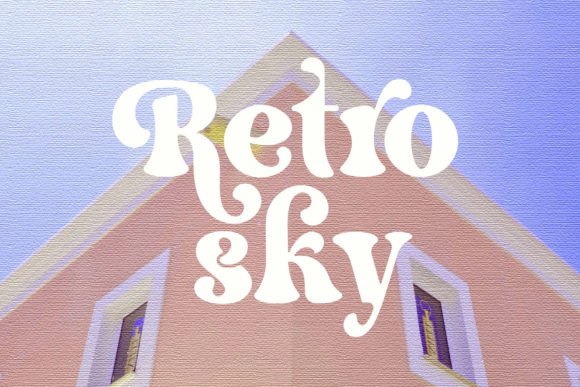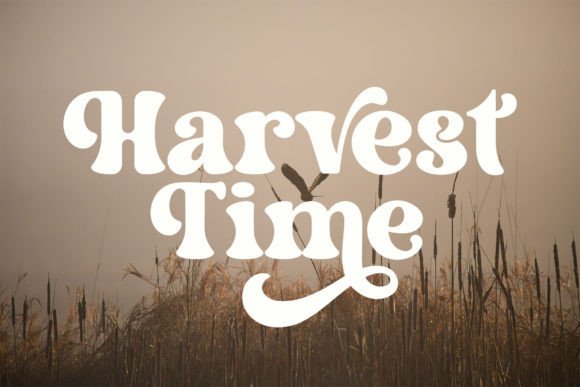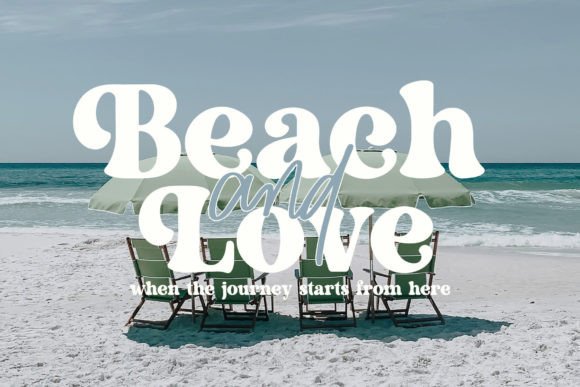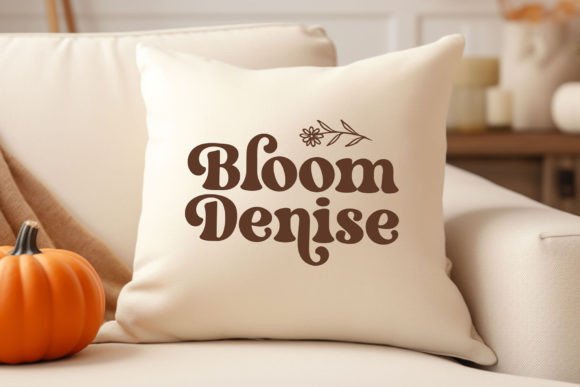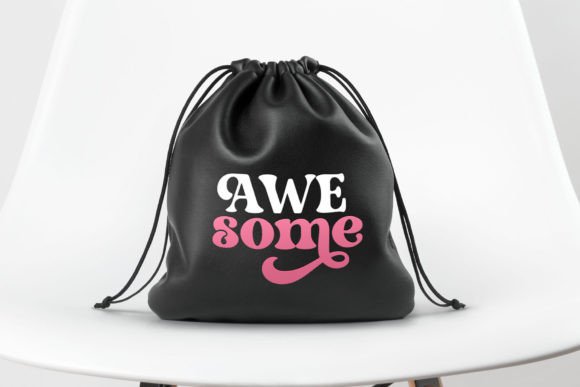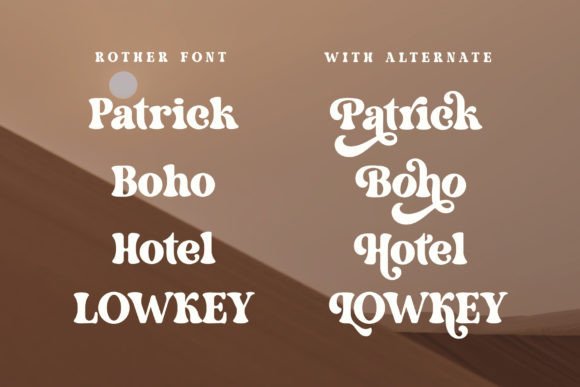
Introduction to Rother Font
Have you ever been working on a creative project, pouring your heart and soul into every detail, only to realize that the perfect font is missing? For designers, finding the right font can be the difference between a project that shines and one that falls flat. This is where the Rother Font comes in – an elegant and bold serif font that’s sure to elevate your designs and leave a lasting impression.
| 👤 Author | airotype |
With its incredibly versatile style, the Rother Font is perfect for a wide range of applications, from beautiful stationery art to eye-catching social media posts. Whether you’re looking for a high-quality font to add a touch of sophistication to your designs or a free download to spice up your next creative project, the Rother Font is a valuable design resource that’s sure to deliver.
Key Features of Rother Font
- High-quality design resource ideal for creative projects, with a clean and modern aesthetic.
- Unique characteristic: A unique blend of modern and minimalist styles, making it a versatile choice for creative projects.
Honest Review: Rother Font
As a designer, I’m always on the lookout for high-quality design resources that can elevate my creative projects. Recently, I had the chance to work with the Rother Font, and I’m excited to share my thoughts with you.
- High-quality typography: The Rother Font boasts clean, elegant lines that make it perfect for various design applications, from print to digital media.
- Limited language support: I found that the Rother Font has limited language support, which might be a concern for designers working on international projects.
- No bold or italic variations: While the font’s clean design is a strength, the lack of bold or italic variations can be a limitation in certain design contexts.
Overall, I’m impressed with the Rother Font’s high-quality typography and free download option. While it has some limitations, I think it’s a great resource for designers working on creative projects that require a clean, elegant font.
Tips for Getting the Most Out of Rother Font
For a transparent background, use a high-quality image with a transparent background and pair it with Rother Font for a clean and modern look. You can also use Rother Font in a creative project, such as a logo or a brochure, to add a touch of elegance and sophistication.
Rother Font is a versatile design resource that can be used in various creative projects, including logos, brochures, business cards, and social media graphics. It’s also a great choice for designers who want to create a high-quality design with a transparent background.